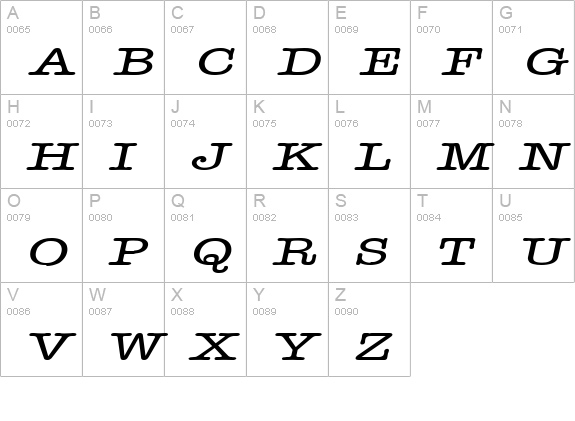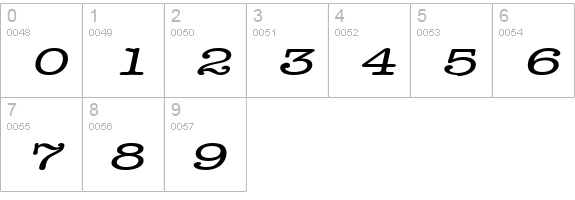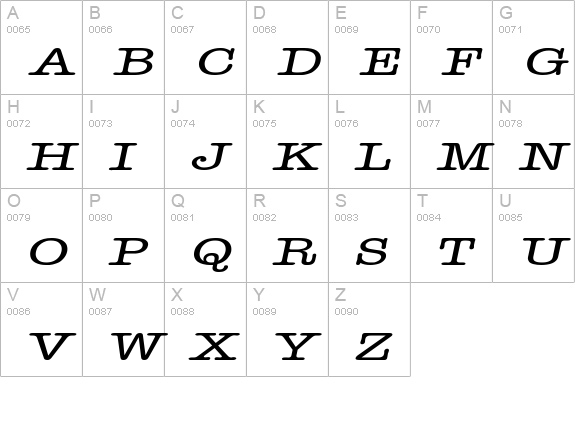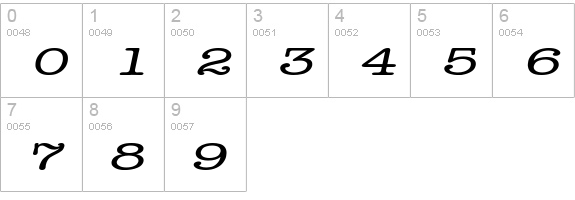
Headline Extended Italic is a distinctive, extended-width, italic variant in the Headline typeface family \xE2\x80\x94 well suited to design and typography projects.
Introducing Headline Extended Italic font, a sleek and stylish typeface that adds a touch of elegance to any design project. This font is perfect for creating eye-catching headlines, striking logos, and captivating social media posts. With its extended and italicized form, Headline Extended Italic font effortlessly commands attention and exudes a sense of sophistication. What's even better is that this amazing font is available for free! That's right, you can now download Headline Extended Italic font at FontsMarket.com without spending a single penny. It's a fantastic opportunity to enhance your creative projects without breaking the bank. Designed with meticulous attention to detail, Headline Extended Italic font boasts clean lines, graceful curves, and a modern aesthetic that will instantly elevate your designs. Its versatility makes it suitable for a wide range of applications, from advertisements and invitations to website headers and branding materials. Whether you're a graphic designer, a marketing professional, or simply someone who appreciates beautiful typography, Headline Extended Italic font is a must-have in your font collection. It's the perfect blend of elegance and functionality, allowing you to make a bold statement while maintaining readability. Don't miss out on this incredible offer! Visit FontsMarket.com today and download Headline Extended Italic font for free. Transform your designs with this exceptional typeface and let your creativity shine.